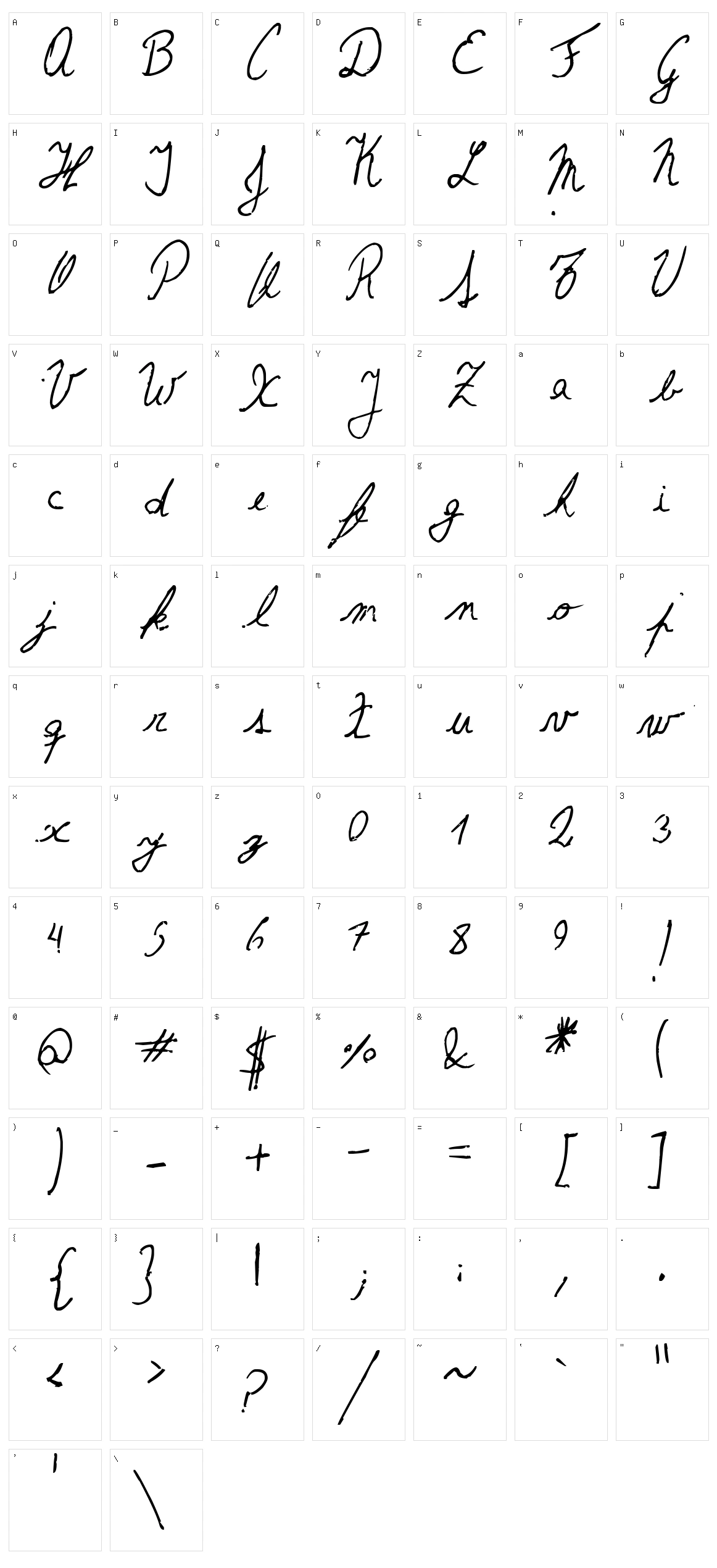
The free font The Left-Handed Cursiva is carefully designed by G/Hildt, showcasing a thoughtful balance of creativity and usability and falls under the Script font style. When you download the ZIP file, it contains only 27.42 KB of font files, making it lightweight and quick to download. Please review the license details below to understand permitted usage and distribution rights. If license information is not available, we recommend using this font for personal projects only or contacting the author directly for commercial usage permissions.